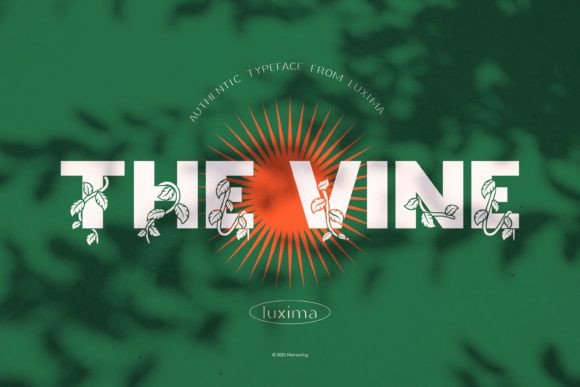
**Introducing The Vine Font: A Stroke of Brilliance for Your Visual Masterpieces**
In a world where visual appeal reigns supreme, The Vine Font emerges as a game-changer, a font family crafted with meticulous attention to detail, specifically designed for retina displays. A creation of Luxima Creative, The Vine Font is a bold and audacious display font that commands attention with its thick, confident strokes, exuding a sense of power and elegance.
The Vine Font isn't just a collection of letters; it's an artistic expression that elevates your designs to new heights. Its PUA encoding opens up a world of possibilities, granting you effortless access to a treasure trove of glyphs and swashes, empowering you to add intricate details and flourishes to your creative endeavors.
**Why Choose The Vine Font?**
- **Visual Impact:** The Vine Font's bold presence makes a lasting impression, capturing the attention of your audience with its captivating charm.
- **Retina Display Perfection:** Designed specifically for retina displays, The Vine Font ensures that your designs look crisp, sharp, and incredibly detailed, leaving a lasting impact on viewers.
- **Effortless Creativity:** With PUA encoding, unleash your creativity without limits. The Vine Font's extensive collection of glyphs and swashes provides endless opportunities to add unique touches and intricate details to your designs, elevating them to masterpieces.
- **Diverse Applications:** The Vine Font's versatility knows no bounds. Whether you're designing captivating logos, eye-catching posters, stunning social media graphics, or captivating website headers, The Vine Font seamlessly adapts to your creative vision, adding a touch of sophistication and flair to every project.
**The Vine Font: Your Creative Ally**
The Vine Font is more than just a font; it's a creative partner, a tool that empowers you to transform your vision into reality. Its bold strokes and intricate details bring life to your designs, captivating your audience and leaving them in awe.
Whether you're a seasoned designer or just starting your creative journey, The Vine Font is your gateway to unlocking a world of visual excellence. Its user-friendly interface and extensive character set make it accessible to all, allowing you to create stunning designs effortlessly.
**Experience the Magic of The Vine Font Today**
Don't let ordinary fonts hold your creativity back. Embrace The Vine Font's bold and captivating style, and watch your designs flourish. Its retina display optimization ensures that your creations shine on any screen, while its PUA encoding opens up a world of creative possibilities.
**The Vine Font: Where Creativity Takes Center Stage**